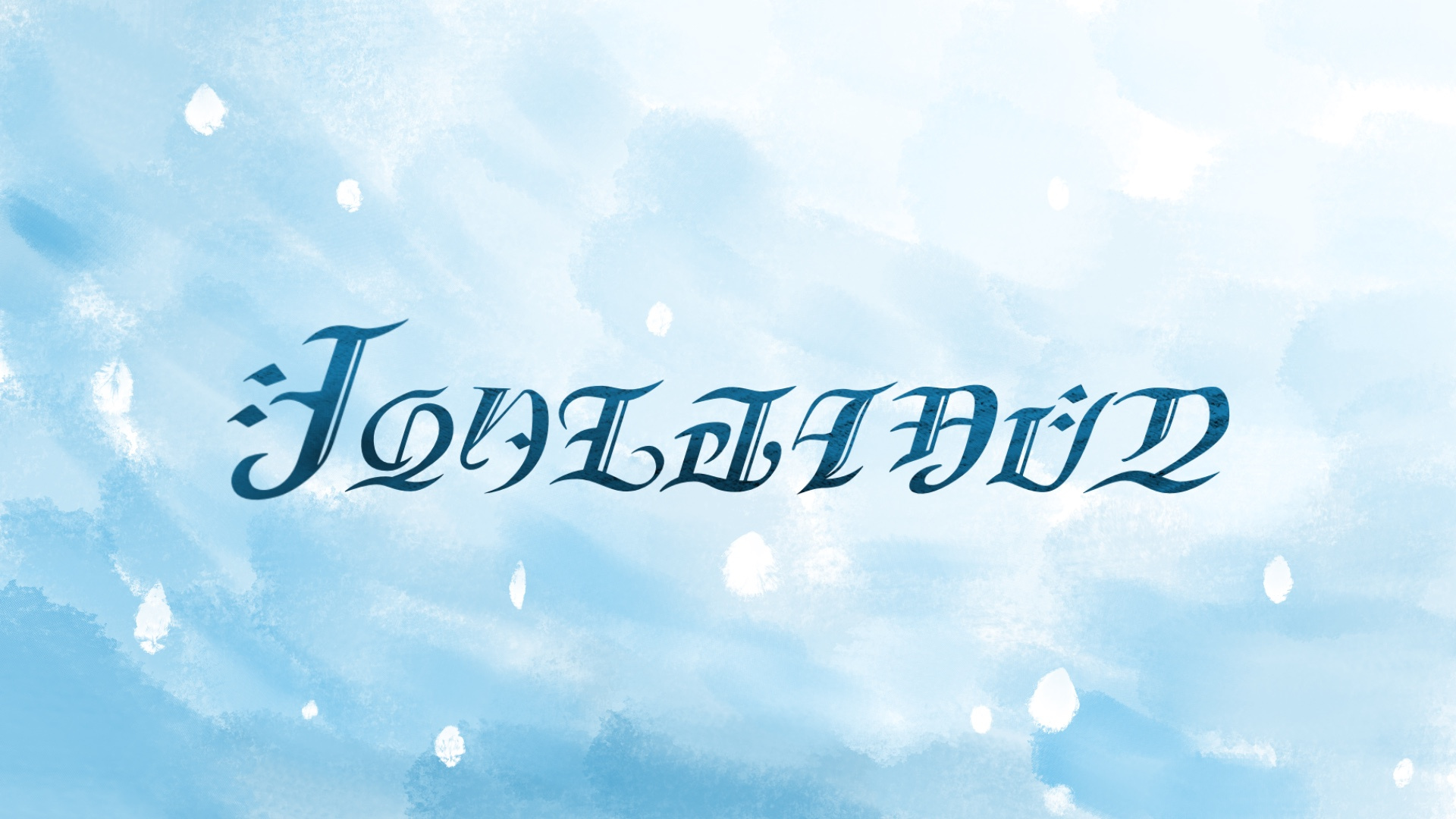
Typeface | Fontbleau (Genshin Fontaine Style Font)
Homemade Genshin Fontaine Script Typeface.
Feel free to let me know if any glyph is not quite correct. I made up "Z" and the punctuations(
Lowercases are the same with small caps.